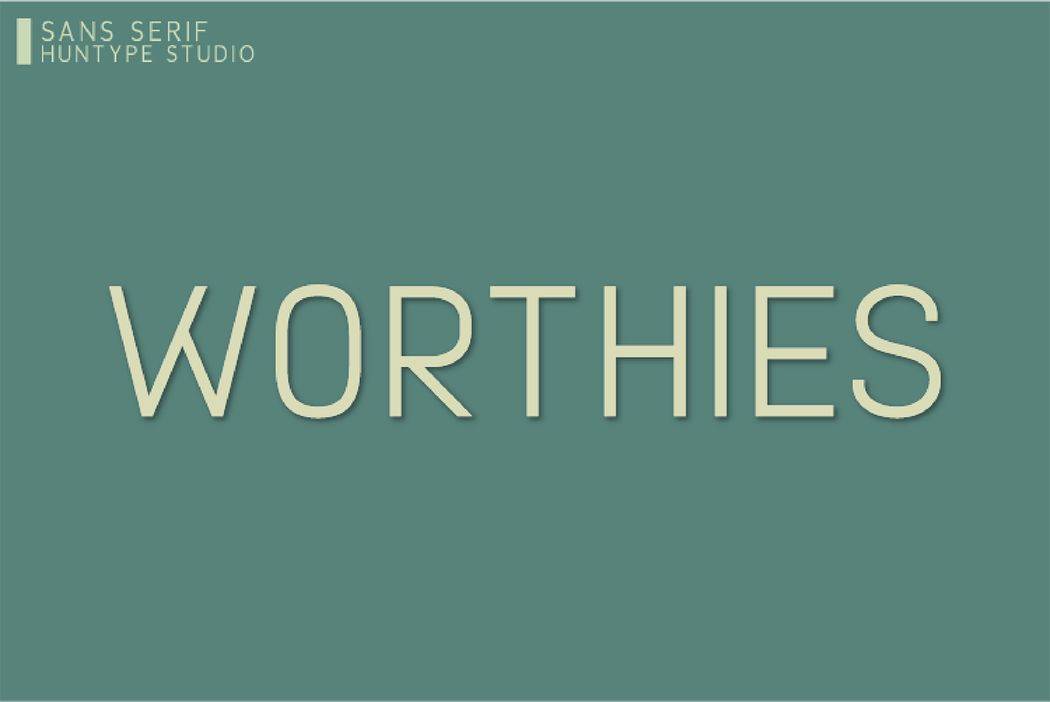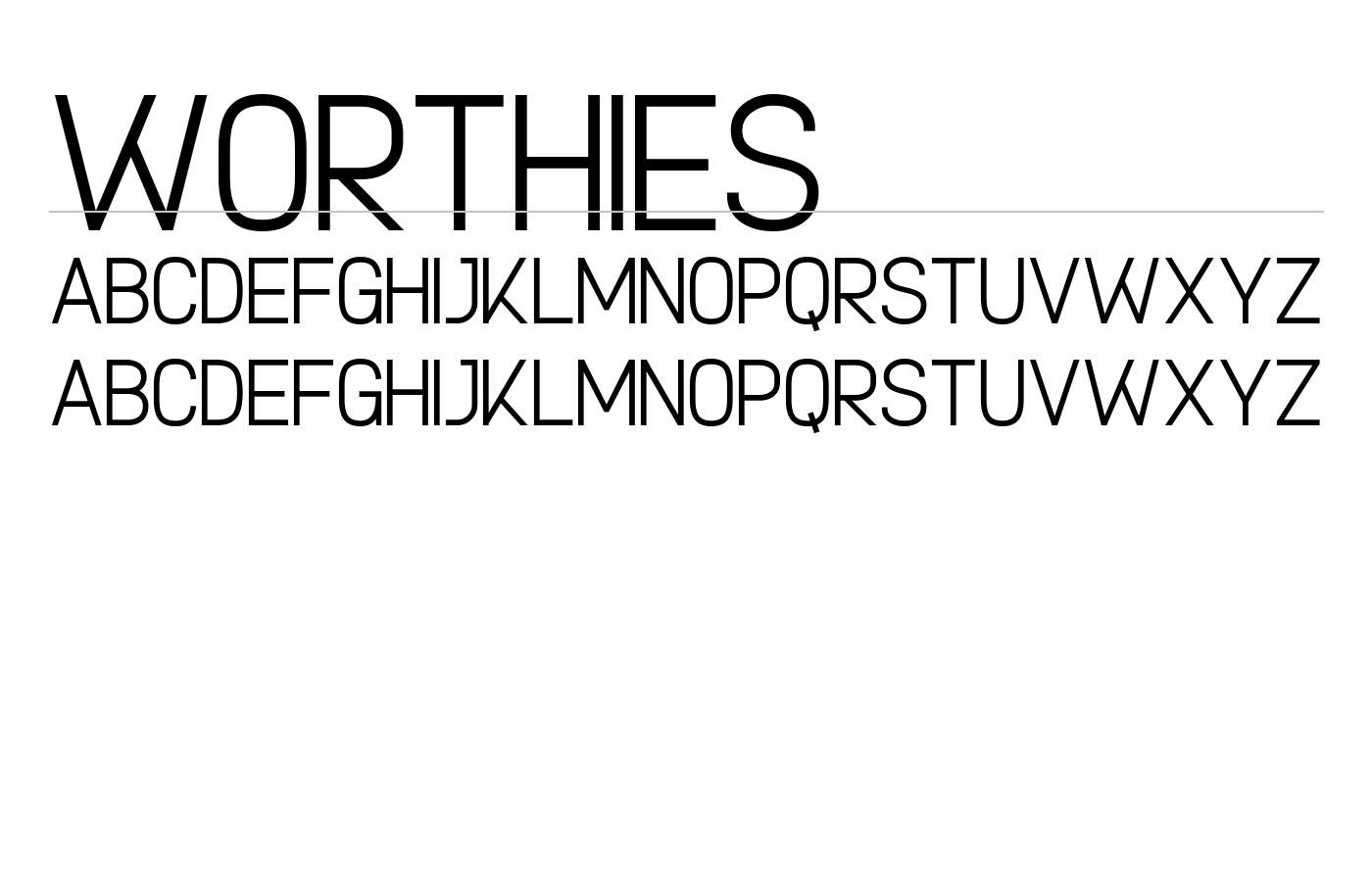
Worthies is a sleek, modern sans serif font characterized by its tall, narrow letterforms and consistent stroke weight, giving it a clean and minimalist look. Its condensed style and sharp, geometric lines make it ideal for striking headlines, logos, and editorial designs that require a contemporary yet elegant feel. This font works well in branding and print where clarity and a refined, stylish presence are key.
Worthies Font